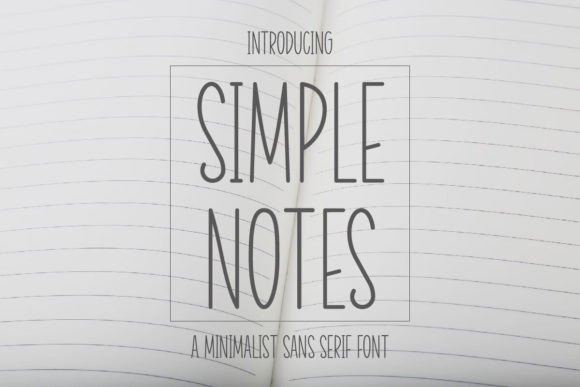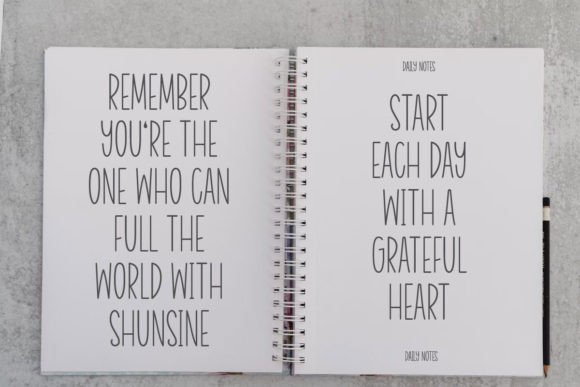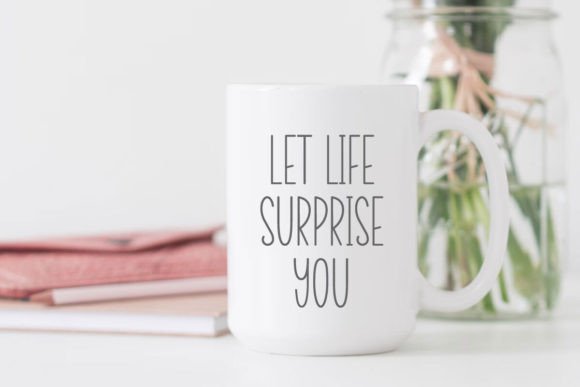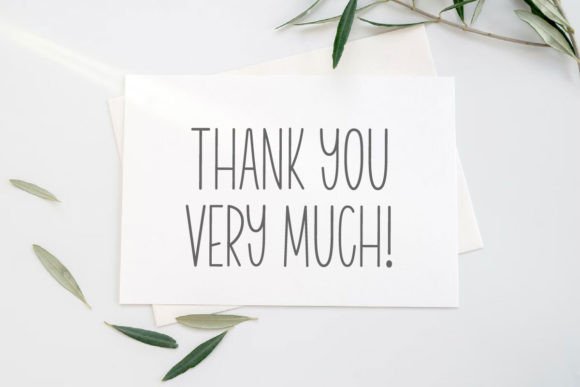
Simple Notes Font
Simple Notes is a minimalist and cute sans serif font, this font is perfect for greeting cards, wedding, gift labels, mugs, t-shirts, quotes, label, etc. Use it to create spectacular and interesting designs!